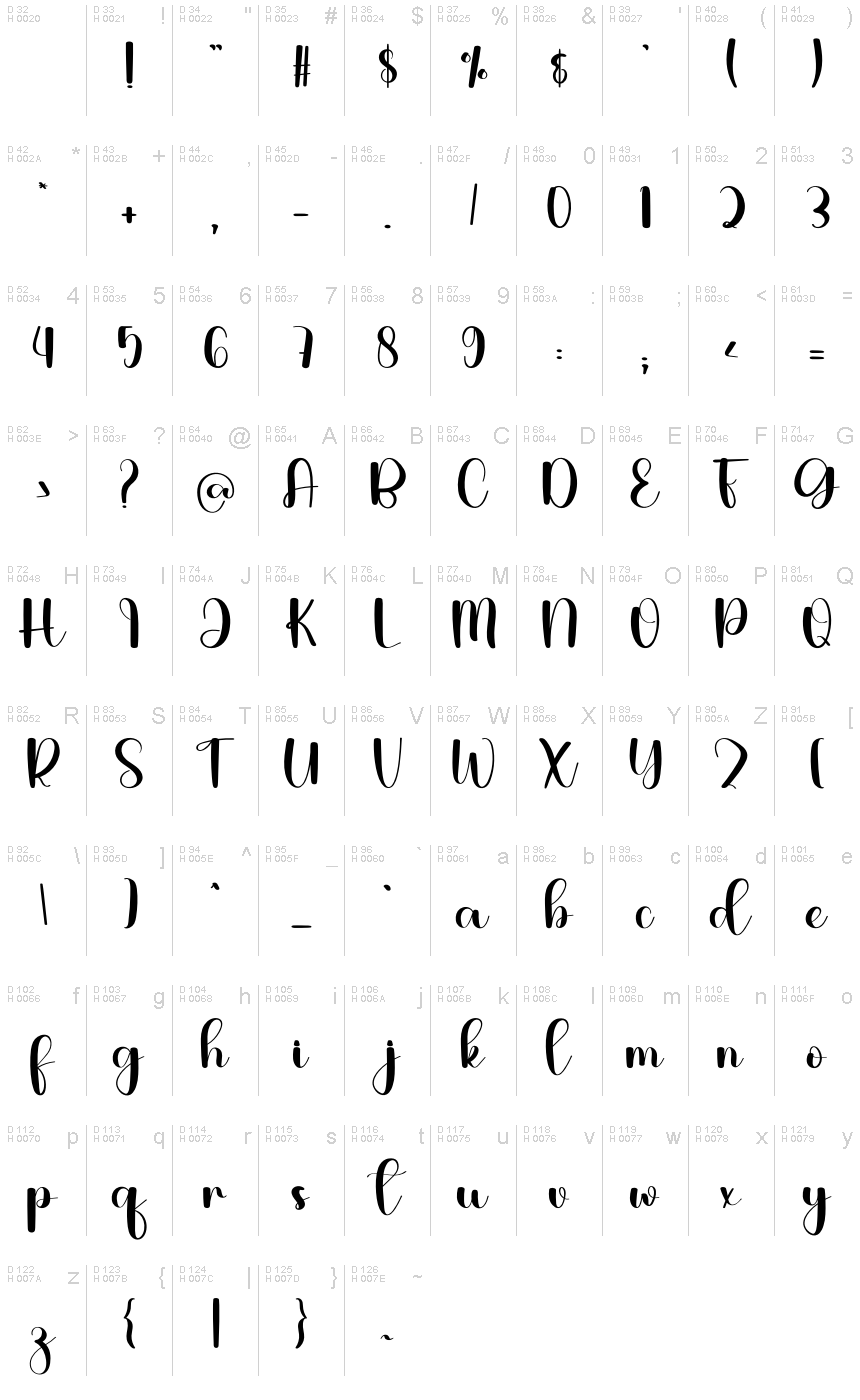
Owner
Owner by PiPi Creative is a captivating brush-style font that effortlessly combines elegance and vitality. Its fluid, hand-drawn strokes exude an expressive charm, lending a distinctive handcrafted feel to any design. The pronounced loops and curves give it a lively personality that's both dynamic and sophisticated.
Perfect for use in branding, packaging, invitations, and social media graphics, Owner shines in projects that seek to convey creativity and individuality. This font's versatile appeal lies in its ability to bring a personalized touch without compromising on readability. Whether you're aiming for a touch of whimsy or refined artistry, Owner's unique characteristics make it an excellent choice for designers looking to create visually striking compositions.